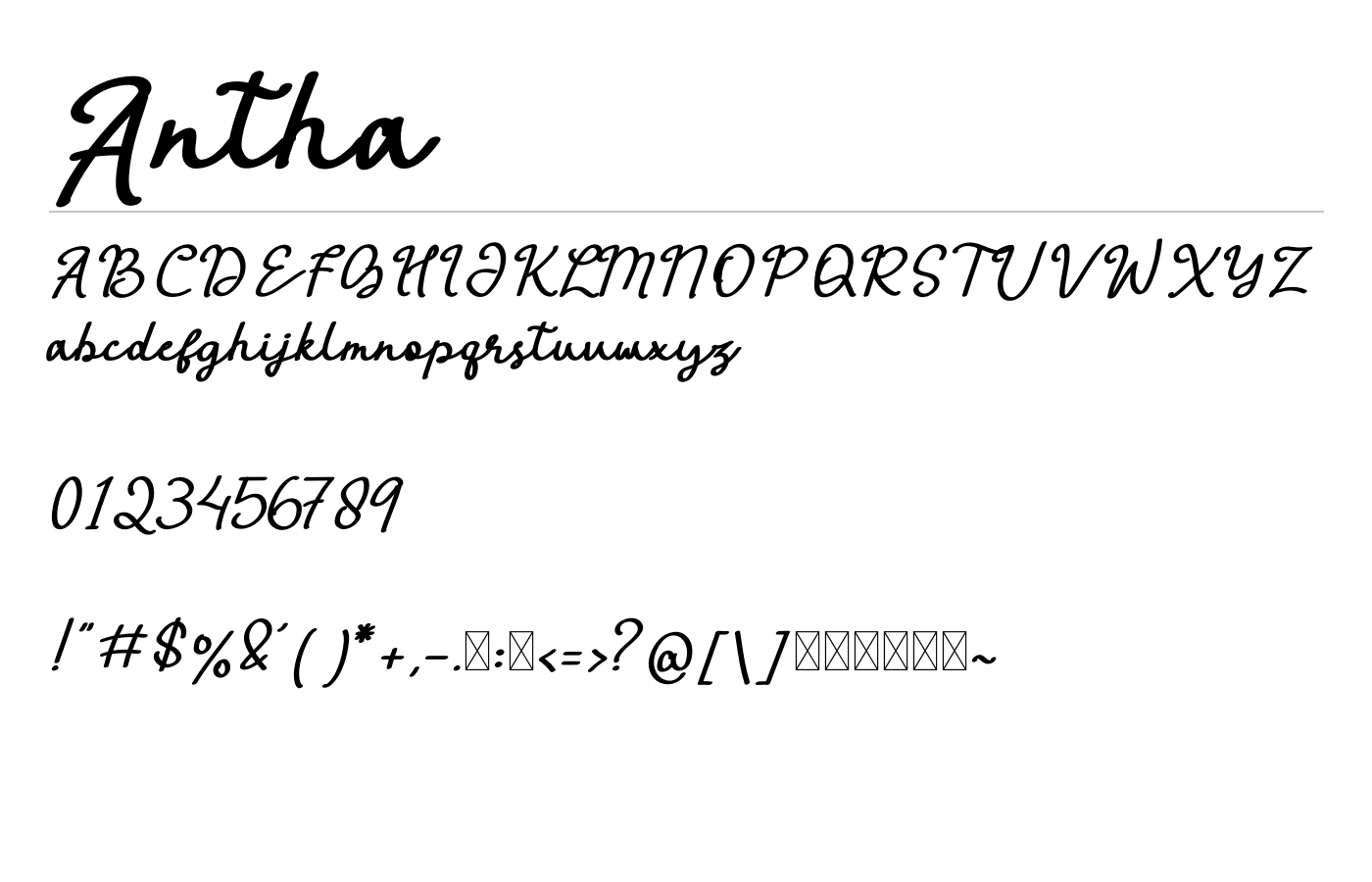
Antha is a graceful script font with a smooth, flowing style that mimics elegant handwriting. Its medium weight and slightly condensed letterforms, combined with subtle contrast and delicate curves, give it a refined yet approachable personality, ideal for invitations, branding, and decorative uses where a personal, stylish touch is desired.
Antha Font
About Antha Font
| Font family | Antha Font |